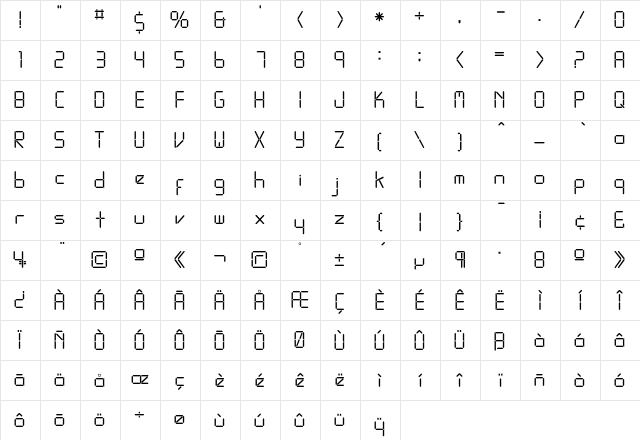
Digitalface Regular
Design Context for Digitalface Typeface
Digitalface channels digital-age aesthetics through its sharp, structured letterforms — ideal for brands that want to signal innovation.
Pro Tip: Use Digitalface in combination with a neutral sans for body text. Let it define the brand voice in headlines while keeping reading comfortable elsewhere.